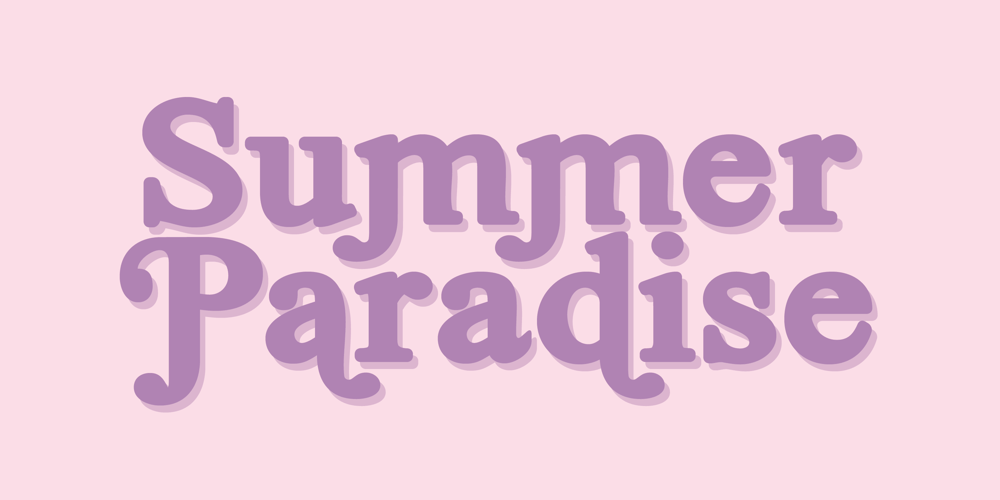
Summer Paradise Font Family was designed by Yusup Saputra and published by DYSA Studio. Summer Paradise contains 1 styles and family package options. Summer Paradise a New Modern Serif Typeface. This another collection of Serif is perfect for your next branding project, excellent for your business. Summer Paradise have a smooth edges, so this font gives an authentic handcrafted feel style.Summer Paradise is perfect choice for people looking for clean, modern, minimalist, elegant, beauty design styles. Suitable for almost any graphic designs such as logo, branding materials, business cards, gift cards, t-shirt, cover, thumbnail, print, poster, photography, quotes .etc